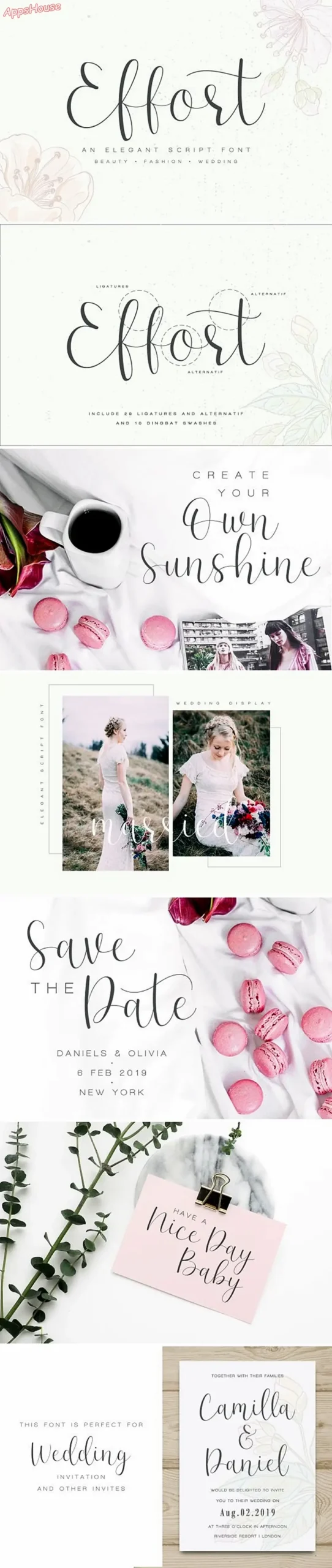
Effort Calligraphy Font
The Effort Calligraphy Font is a beautifully crafted typeface that brings an elegant touch to any project. Designed with precision, this font features flowing strokes and intricate details, making it perfect for a variety of applications.
• Stylish calligraphy design
• Easy to read in both large and small sizes
Ideal for branding, logos, invitations, and any print or digital design that requires a touch of elegance.